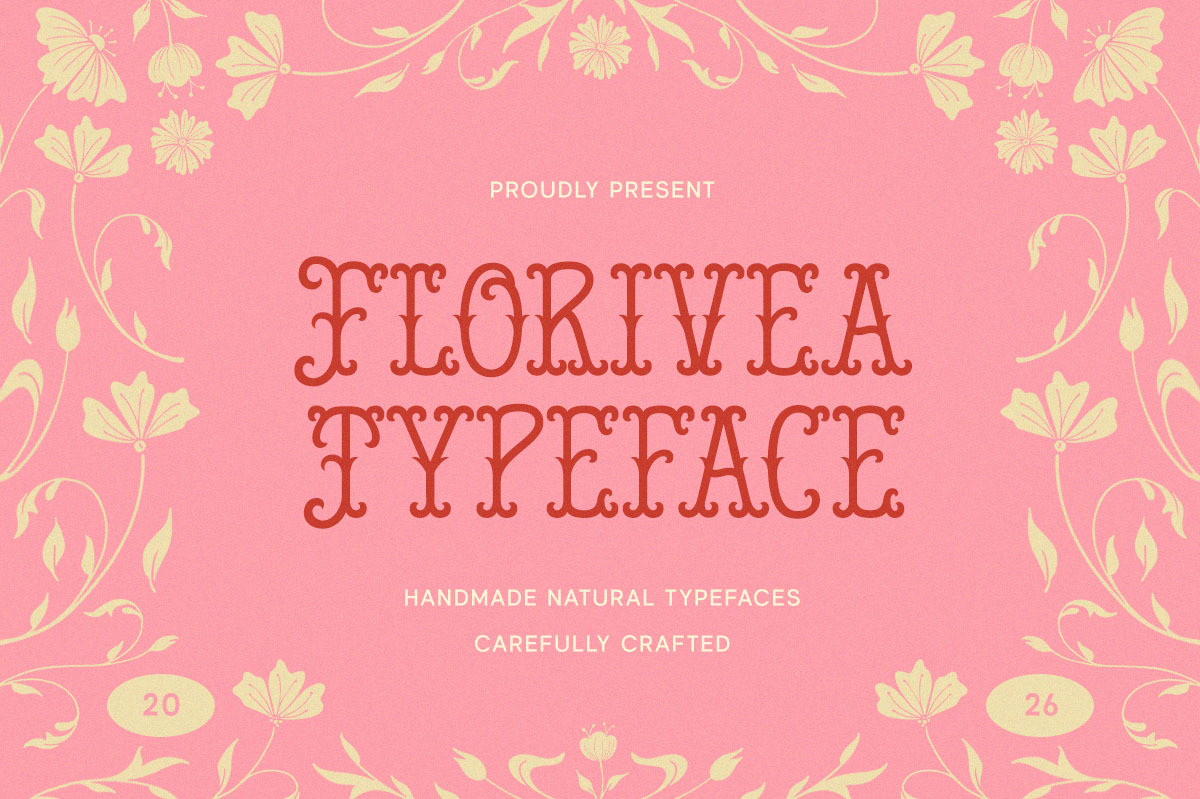
Florivea Handmade Natural Typeface
Floriva Typeface feels like a sweet little throwback wrapped in soft petals and sunshine. With its curvy serif shapes, playful details, and slightly quirky rhythm, this font brings a gentle retro charm that’s both cute and eye-catching. It has that handmade, storybook vibe—like something you’d find on vintage packaging, cozy café menus, or dreamy branding with a touch of nostalgia.